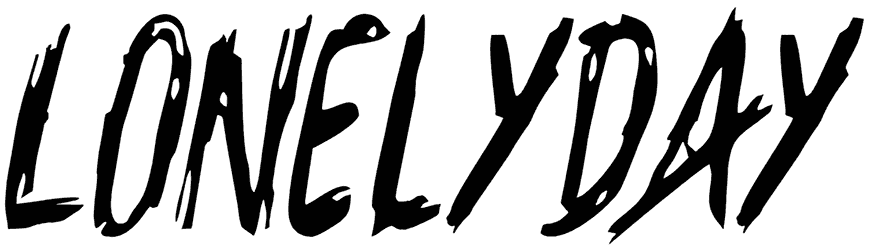
RIN Font
Sometimes operating a trash font such as RIN can add a sense of urban, dynamic, and eerie to illustrations such as street flyers, video game banners, digital displays, website templates, applications, and more. Some of the characters in this evil font, which doesn’t support lowercase letters, are messy, so it turns it into an outstanding pickup in comparison to its counterparts.